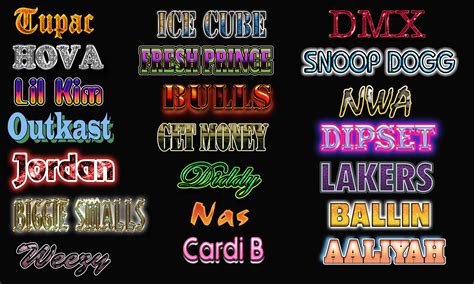
Create Cool Designs with 90s Rap Font Generator - Unleash Your Inner Hip-Hop Artist!
Transform your words into a 90s rap masterpiece with our font generator. Recreate the iconic style of the decade in seconds. Get started now!
Are you a fan of 90s rap music? Do you want to add a touch of nostalgia to your designs? Look no further than the 90s rap font generator! With just a few clicks, you can transport your audience back to the golden age of hip hop.
First and foremost, this font generator is incredibly easy to use. Whether you're a seasoned graphic designer or a novice just starting out, you'll have no trouble creating eye-catching designs with this tool.
But don't be fooled by its simplicity - the 90s rap font generator packs a punch when it comes to style. Bold and brash, this font screams attitude and swagger. It's perfect for capturing the rebellious spirit of 90s rap, whether you're designing album covers, flyers, or social media posts.
So what are you waiting for? Give your designs a blast from the past with the 90s rap font generator. Your audience will thank you for it.
Unleashing Nostalgia with 90s Rap Font Generator
Are you a fan of the golden era of hip hop? Do you miss the days of classic rap designs, with their bold and striking typography? If so, the 90s Rap Font Generator is the ultimate tool to infuse nostalgia into your design projects. This revolutionary font generator allows users to recreate the vintage aesthetic of the 90s, with its unique and iconic typography. From album covers to merchandise design, this tool offers endless possibilities to unleash your creativity and stand out from the crowd.
The Evolution of Rap Fonts
The world of rap fonts has come a long way since the early days of blocky and bold typography. In the 90s, rap fonts took on a life of their own, with intricate and ornate designs that captured the essence of the genre. From graffiti-inspired lettering to chunky serif fonts, the 90s saw a surge of unique and iconic fonts that continue to inspire designers to this day.
How to Use the 90s Rap Font Generator
If you're ready to create custom 90s-inspired fonts, look no further than the 90s Rap Font Generator. This tool allows users to choose from various font styles, customize colors and sizes, and add effects such as shadows and gradients. With its user-friendly interface and easy-to-use features, even novice designers can create stunning vintage-inspired designs.
Examples of 90s Rap Fonts
The 90s rap font aesthetic was all about bold, striking, and alternative designs. Think classic band logos, album covers, and vintage flyers. The 90s Rap Font Generator captures this nostalgic look, with its range of font styles and graphic elements. Whether you're looking to recreate iconic rap designs or create something entirely new, this tool offers endless possibilities to explore and experiment.
Design Inspiration: Recreating Iconic Rap Designs
If you're looking for design inspiration, look no further than the chart-topping rap acts of the 90s. From Tupac to Wu-Tang Clan to Notorious B.I.G., these legendary artists left a lasting impact on the world of hip hop design. Use the 90s Rap Font Generator to recreate their iconic logos, album covers, or designs, and put your own spin on these timeless classics.
Fusing 90s Rap Fonts with Modern Design
The 90s may have come and gone, but the nostalgia-driven design elements of the era are here to stay. The beauty of the 90s Rap Font Generator is its ability to blend vintage fonts with modern design elements. Experiment with gradients, textures, and shapes to create a contemporary twist on the golden era of rap. With this tool, the possibilities are truly endless.
Perfect for Merchandise Design
Looking to create merchandise that screams old-school hip hop? The 90s Rap Font Generator is the ideal tool to create t-shirts, merch, and even custom album covers that exude retro cool. Whether you're designing for a client or launching your own brand, this tool makes it easy to capture the essence of the 90s and create designs that stand out.
Customization Beyond Fonts
While the 90s Rap Font Generator specializes in typography, its features also include graphic elements such as iconography, textures, and patterns. Mix and match with customized fonts to create vintage designs that stand out from the crowd. With this tool, you can take your design projects to the next level and create something truly unique.
Standing Out on Social Media
Social media platforms such as Instagram, Facebook, and TikTok are the perfect place to showcase your 90s-inspired designs. Use the 90s Rap Font Generator to create compelling visuals that stand out from the crowd. Whether you're promoting your brand or sharing your design projects with the world, this tool is the key to capturing the attention of your audience.
There are many websites that offer 90s rap font generators for free, such as Font Meme, Cool Text, and Font Generator. Simply search for 90s rap font generator on your preferred search engine and explore the options available to you.
In conclusion, a 90s rap font generator is a fun and creative way to add some old-school hip-hop flair to your designs. With its bold, eye-catching fonts and customizable features, it's no wonder why so many people are interested in using this tool. So go ahead and give it a try – you might just be pleasantly surprised by the results!